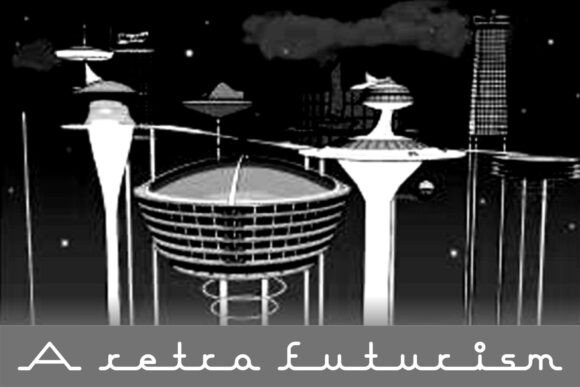
Introduction to Schwinn Script Font
Have you ever stumbled upon a design that instantly sparks creativity, making you want to jump into a project and get lost in the process? That’s exactly what happens when you lay eyes on the Schwinn Script Font. Its unique blend of retro futurism and modern flair makes it the perfect addition to any creative project.
Whether you’re a seasoned designer or just starting out, Schwinn Script Font is a valuable resource that can elevate your designs to the next level. Its high-quality, transparent background design makes it easy to use in a variety of applications, from logo design to branding campaigns.
Key Features of Schwinn Script Font
- Unique, elegant script design ideal for creative projects, invitations, and event branding
- High-quality design with transparent background, allowing for seamless integration into various design elements
- Includes a wide range of characters, including uppercase and lowercase letters, numbers, and punctuation marks
- Perfect for adding a touch of elegance and sophistication to your design projects, from wedding invitations to branding materials
Honest Review: Schwinn Script Font
I recently stumbled upon the Schwinn Script Font, and I must say it’s been a game-changer for my creative projects. The font is a high-quality, elegant script that’s perfect for adding a touch of sophistication to any design.
One of the things that stands out about this font is its versatility. It’s ideal for creating beautiful headings, logos, and even wedding invitations. The font is also available for free download, making it a fantastic design resource for those on a budget.
- Elegant and sophisticated design
- High-quality and crisp typography
- Perfect for headings, logos, and invitations
- Some users may find the font too ornate or distracting
Overall, I’m thoroughly impressed with the Schwinn Script Font. Its high quality and elegance make it a fantastic addition to any design project. While it may have some limitations, I believe it’s a valuable design resource that’s definitely worth checking out.
The Schwinn Script Font is perfect for various design projects, including invitations, posters, and social media graphics. It’s also great for branding and logo design, especially for creative businesses.
To get the most out of the Schwinn Script Font, use it in combination with other design resources, such as graphics and images. Experiment with different font sizes, colors, and styles to create a unique look. You can also use the font for quotes, titles, and headings to add a personal touch to your design.